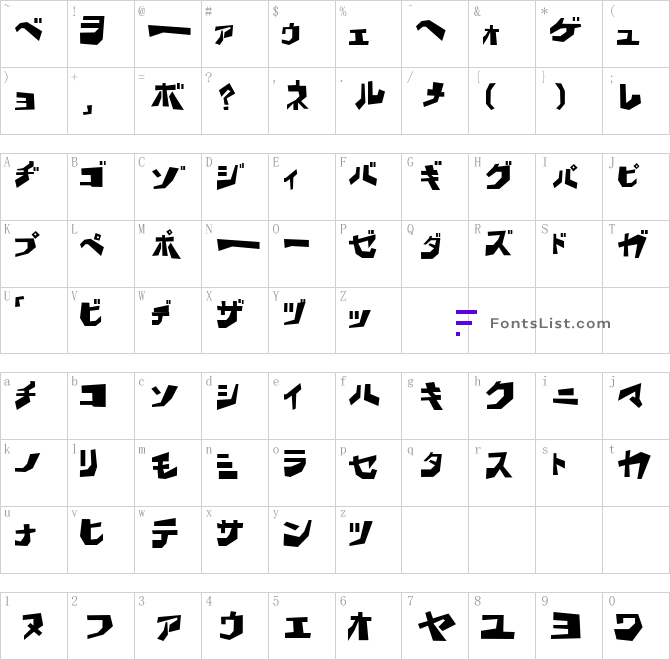
- Font Name:BD Wakarimasu
BD-Wakarimasu-KTA.ttf is a very beautiful artistic font, BD-Wakarimasu-KTA.ttf is widely used in the design and printing of various books and pictures,BD-Wakarimasu-KTA.ttf has a strong visual impact,BD-Wakarimasu-KTA.ttf is a commonly used font in newspapers, magazines and books, and is used in posters, e-commerce Poster design, store design, logo design, font design and other fields.BD-Wakarimasu-KTA.